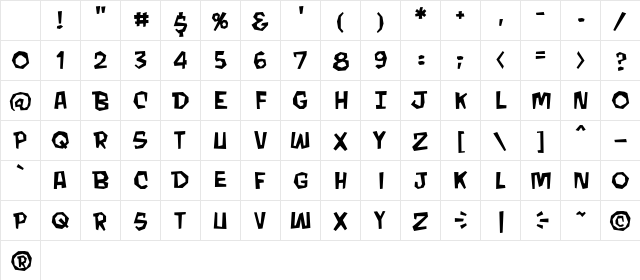
Complete MondoBeyondo BB Regular glyph index. Displaying only characters natively supported by MondoBeyondo BB Regular font.
MondoBeyondo BB is a composed and adaptable typeface that performs quietly and consistently across a wide range of design contexts.
Who designed the MondoBeyondo BB Regular font?
This font was published by Nate Piekos. Blambot.com. Check the technical specs section for copyright and designer details.